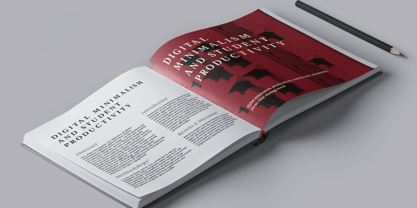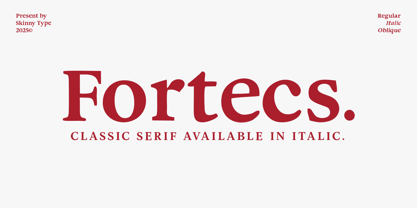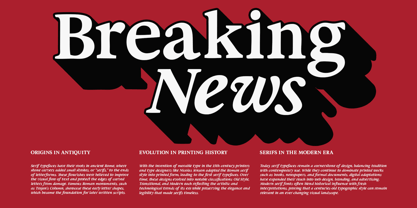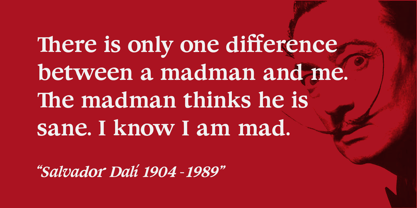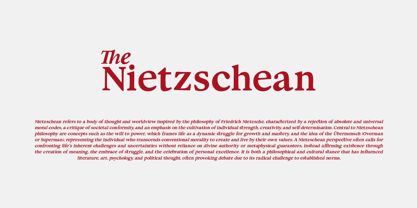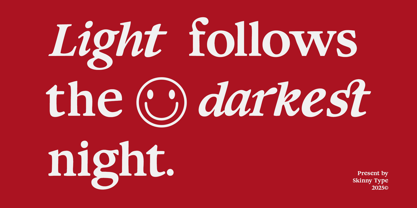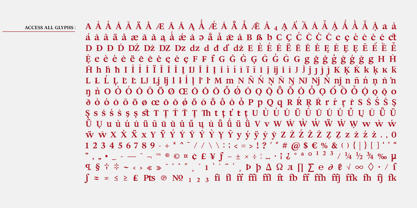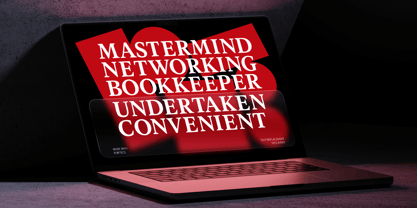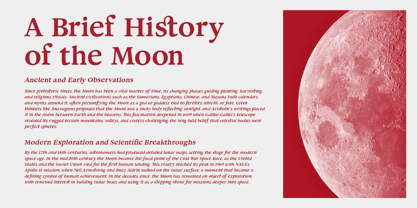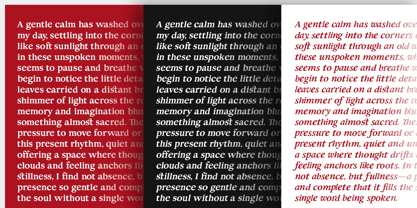
Fortecs
Die Schriftfamilie Fortecs wurde von Muhajir entworfen und von Skinny Type veröffentlicht. Fortecs enthält 3 Stile und Familienpaketoptionen.
Fortecs is a timeless classic serif typeface that elegantly balances traditional craftsmanship with contemporary appeal. Designed by Skinny Type in 2025, this font showcases robust serifs and carefully sculpted letterforms that convey both strength and sophistication. Each character is meticulously crafted to provide exceptional readability and charm, making it ideal for a wide range of applications from editorial design and branding to packaging and formal invitations.
Fortecs offers multiple styles, including Regular, Italic, and Oblique, allowing designers versatile options to enhance typographic hierarchy and expressiveness in their projects. The italic version complements the upright styles with fluidity and grace, while the oblique style provides a subtle slant that maintains clarity and impact.
This serif typeface excels in creating a distinguished, authoritative presence while maintaining warmth and approachability. Its classic proportions and slight modulation in stroke width make it a refined choice for those seeking a font that bridges the gap between tradition and modernity.